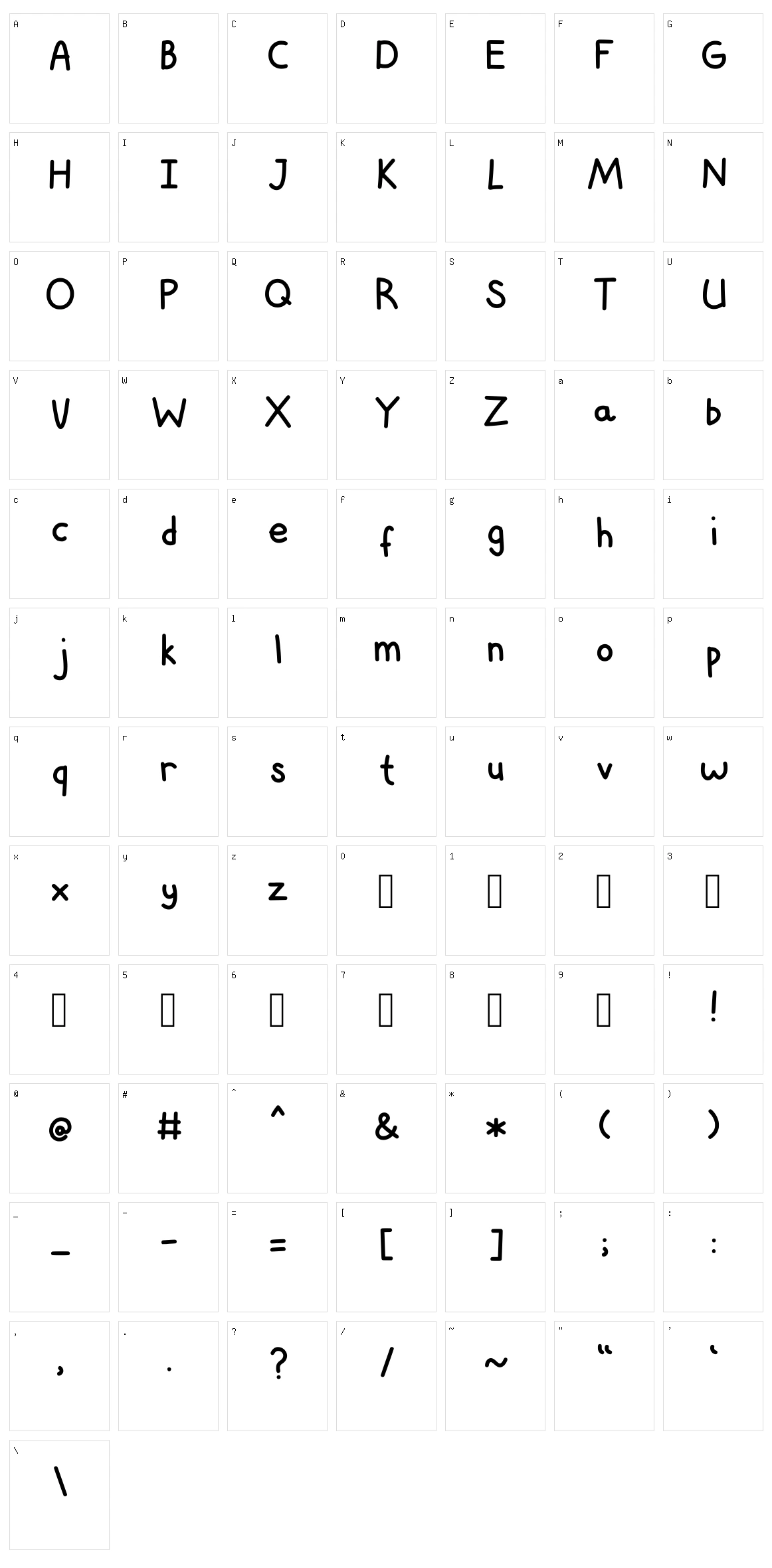
Iora
Description: The free font Iora is carefully designed by Shelin Kezia, showcasing a thoughtful balance of creativity and usability and falls under the Script font style. When you download the ZIP file, it contains only 440.74 KB of font files, making it lightweight and quick to download. Please review the license details below to understand permitted usage and distribution rights. If license information is not available, we recommend using this font for personal projects only or contacting the author directly for commercial usage permissions.